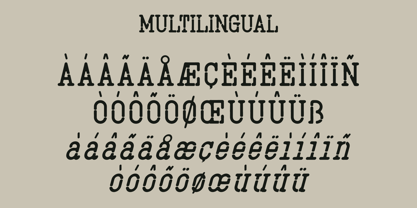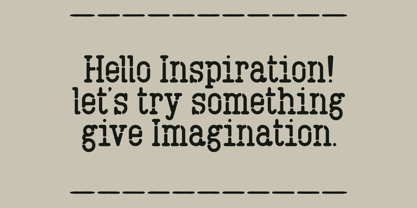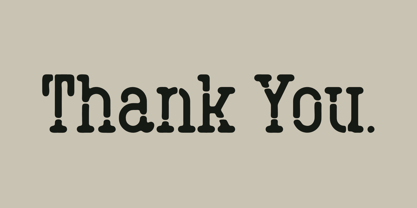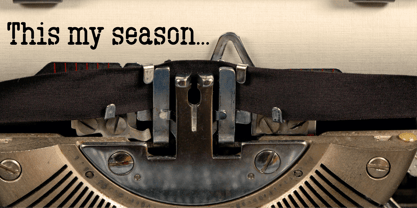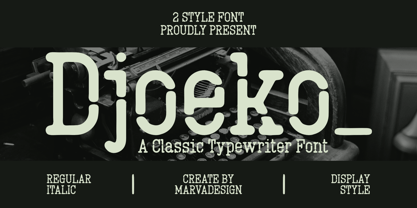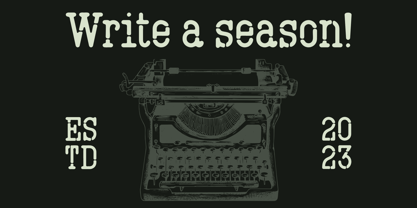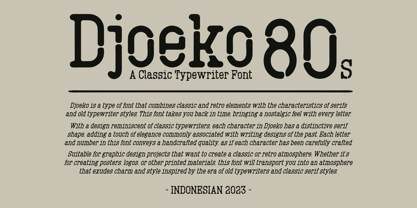
Djoeko
by Marvadesign
The Djoeko Font Family was designed by Febrie Setiawan and published by Marvadesign. Djoeko contains 2 styles and family package options. More about this family
Introducing a new font Djoeko is a meticulously designed typeface that embodies the essence of vintage typewriters while incorporating a touch of modern refinement. This font combines classic serif elements with retro aesthetics, making it a perfect choice for nostalgic and elegant designs. The unique letterforms showcase a handcrafted quality, reminiscent of traditional printing techniques, giving each character a distinctive and sophisticated appearance.
With its bold yet refined curves, Djoeko maintains readability while adding a sense of old-world charm. Ideal for posters, branding, editorial design, and various creative projects, this typeface transports the viewer into the era of mechanical typewriters and vintage printing. Available in Regular and Italic styles, it provides versatility for different design needs.
Designers: Febrie Setiawan
Foundry: Marvadesign